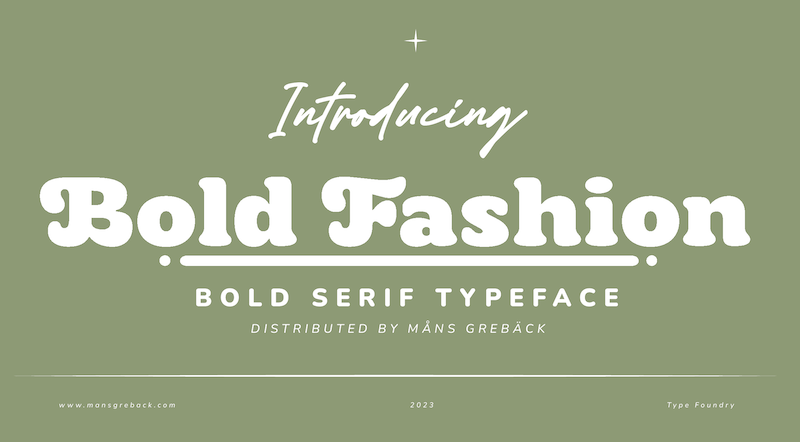
Preview and download Bold Fashion Font. Created by Måns Grebäck in Fancy Retro styles with Free for personal use license.
NOTE: This font is for PERSONAL USE ONLY! To purchase a commercial license, visit: http://mn.sg/bold-fashion Bold Fashion is a heavy slab-serif font of the disco era. Its funk-style design, coupled with soft, rounded serifs, embodies the soul of retro. Each letter is profoundly heavy, yet they prance with a bouncy, comfy rhythm, akin to catchy 70s beats. For questions, please visit www.mansgreback.com/faq |